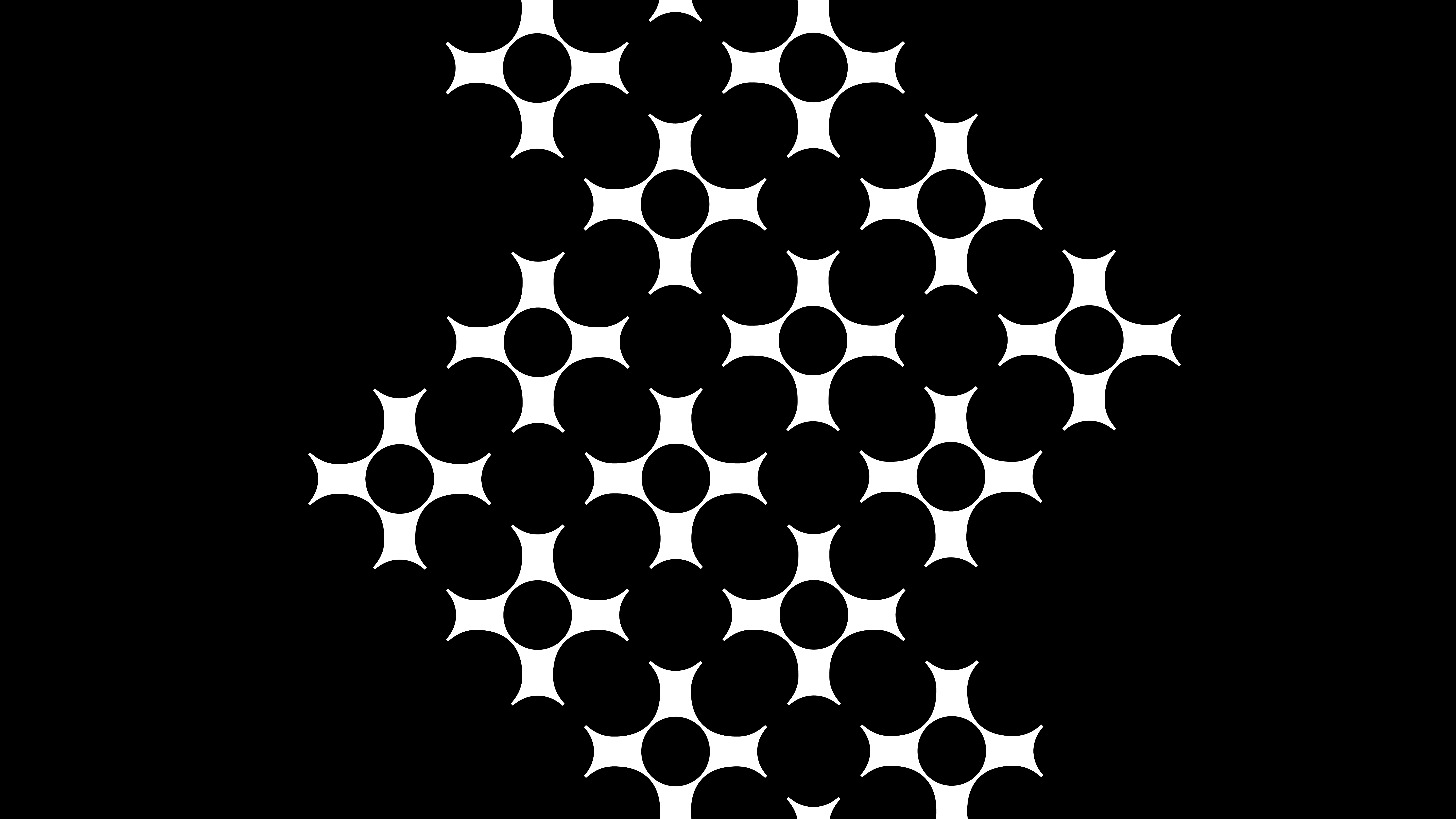
F37 Gothica
Known for experimental and typographic excellence, Spin has developed three fonts for F37×.
F37 Gothica is visually striking and prickly to the touch. Constructed like an ornate cast iron fence, the serifed bars interact and combine in mesmerising ways. The letter forms allude to blackletter, but are lighter, spacious and more mechanical. This can be seen perfectly in the ’t’. As the crossbars interact, a beautifully light counter form is created. Another unique feature of the font is the lack of diagonals throughout the character set. This makes the overall texture of F37 Gothica repetitive and smooth. Included in the font is an additional Stylistic Set that is even more serifed than the standard set.
F37 Gothica
The Designer
SPIN is the creative output of a London-based studio which has been rotating between the poles of art and design since 1992.
This revolution has so far been televised, animated, printed, photographed, pixelated and painted, but rather than offer singular or static solutions, their vision is for an ongoing dialogue between a conceptual practice and its many applications in the real world. In both the virtual and physical realms, SPIN push and play with such boundaries when making work for the halls of commerce and retail, or for the walls of exhibitions. Always innovative and responsive, but constantly enquiring, SPIN create organic visual languages, lending design impetus to their art projects, while removing the type from typography and giving it a new face.